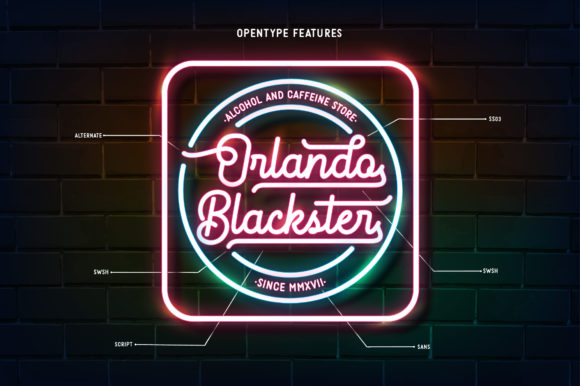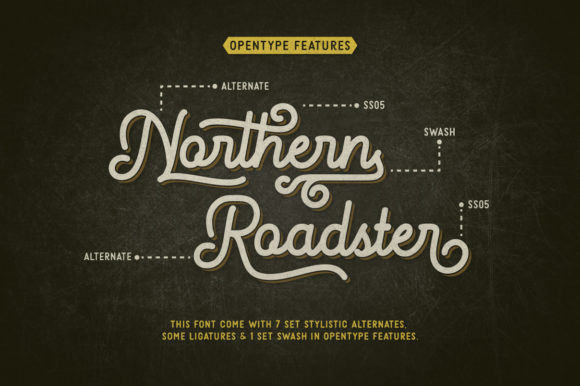
Brandmaster Font
db-ku.com - Script & Handwritten -- Brandmaster is a cool and vintage styled duo font (sans serif and script). No matter the topic, this font will be an incredibly asset to your fonts’ library, as it has the potential to elevate any creation.